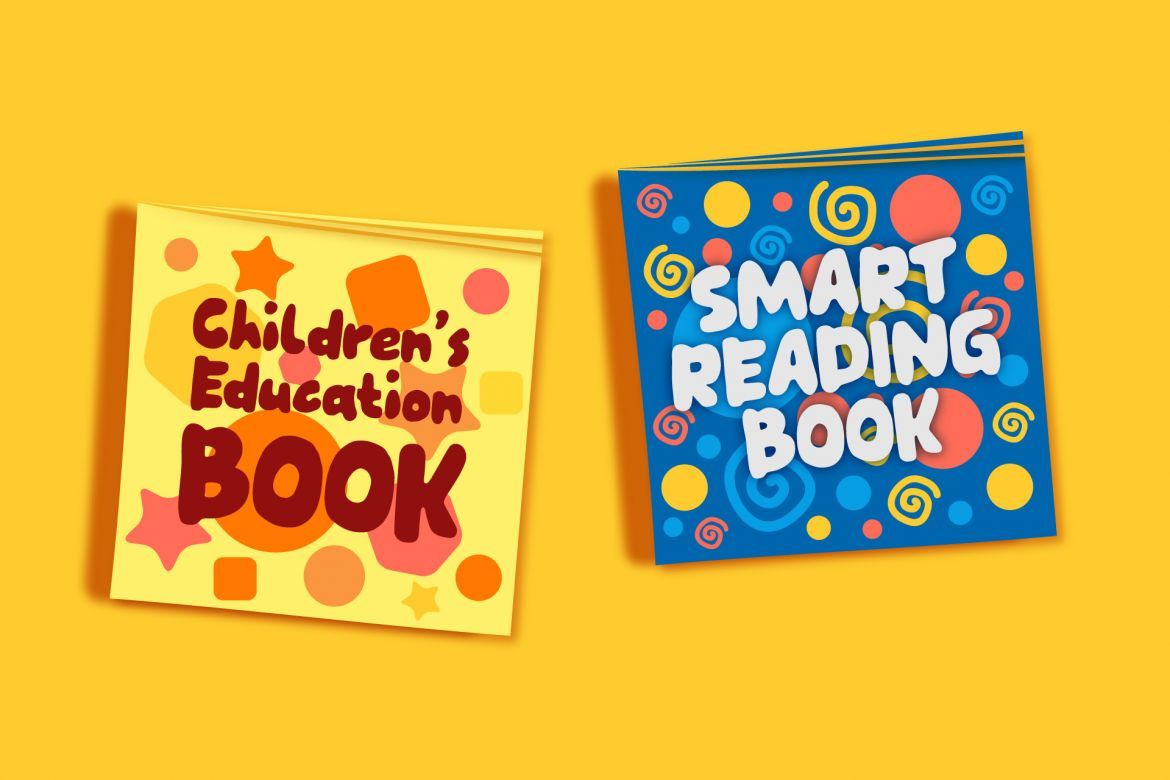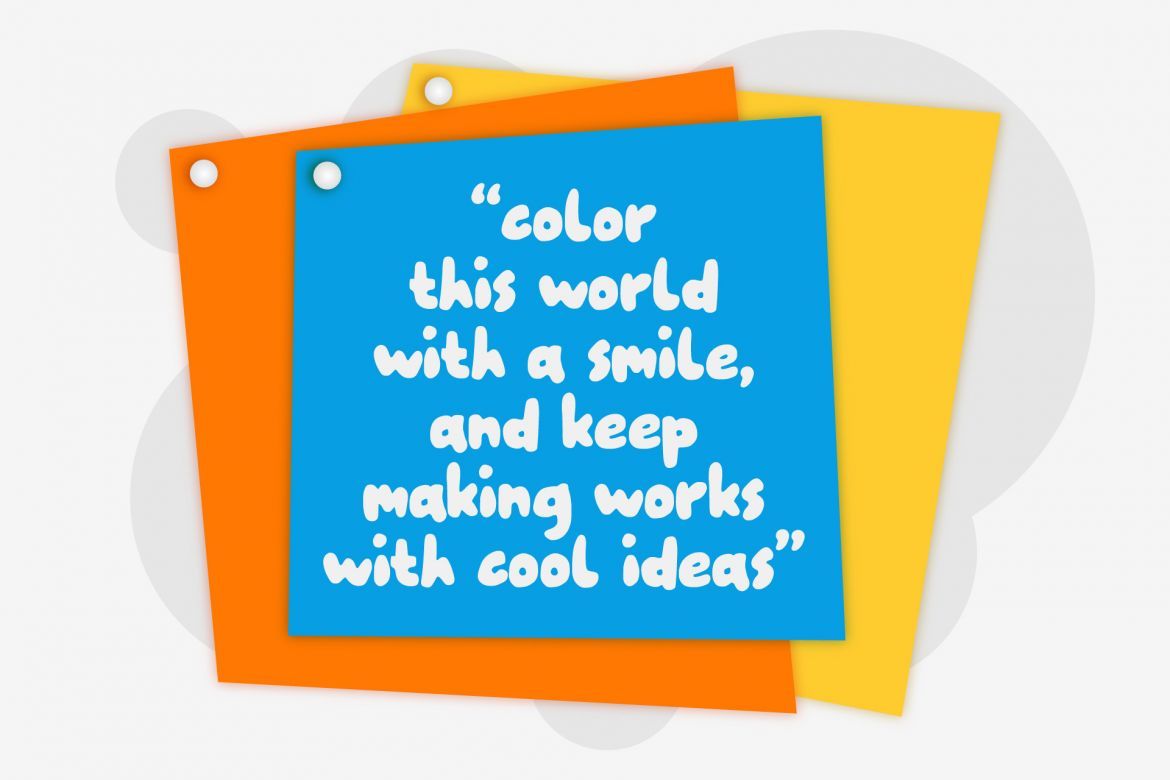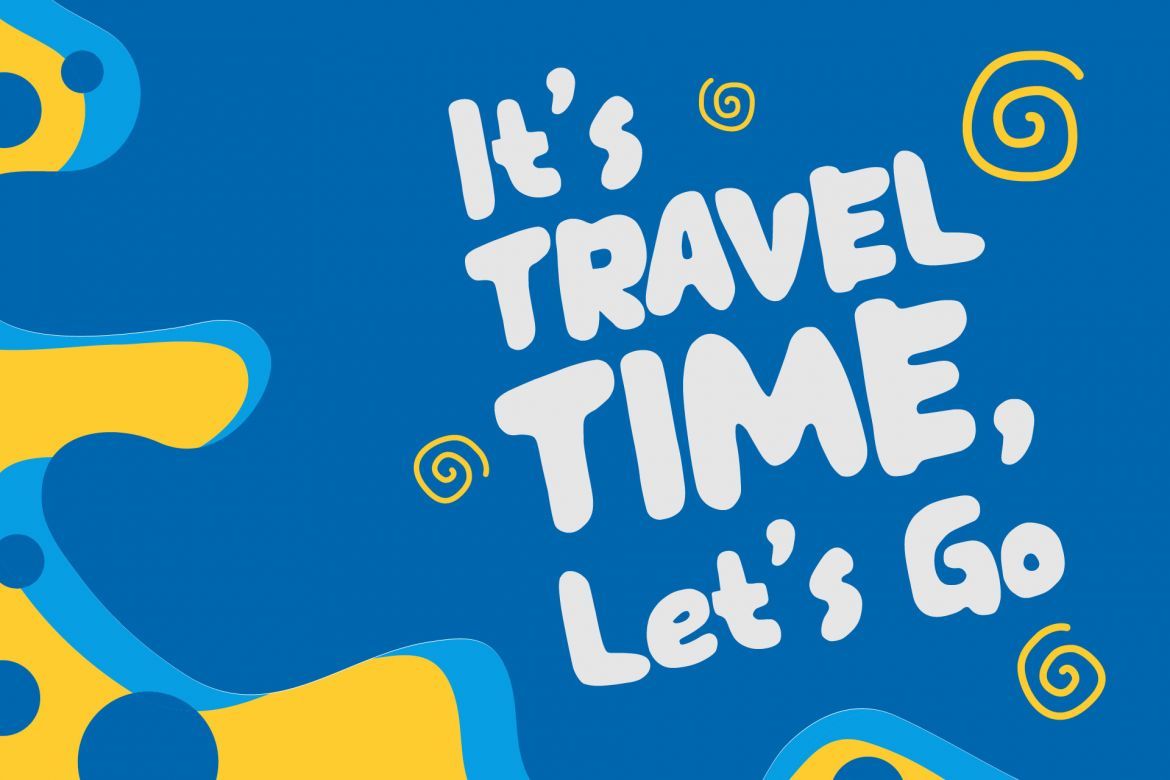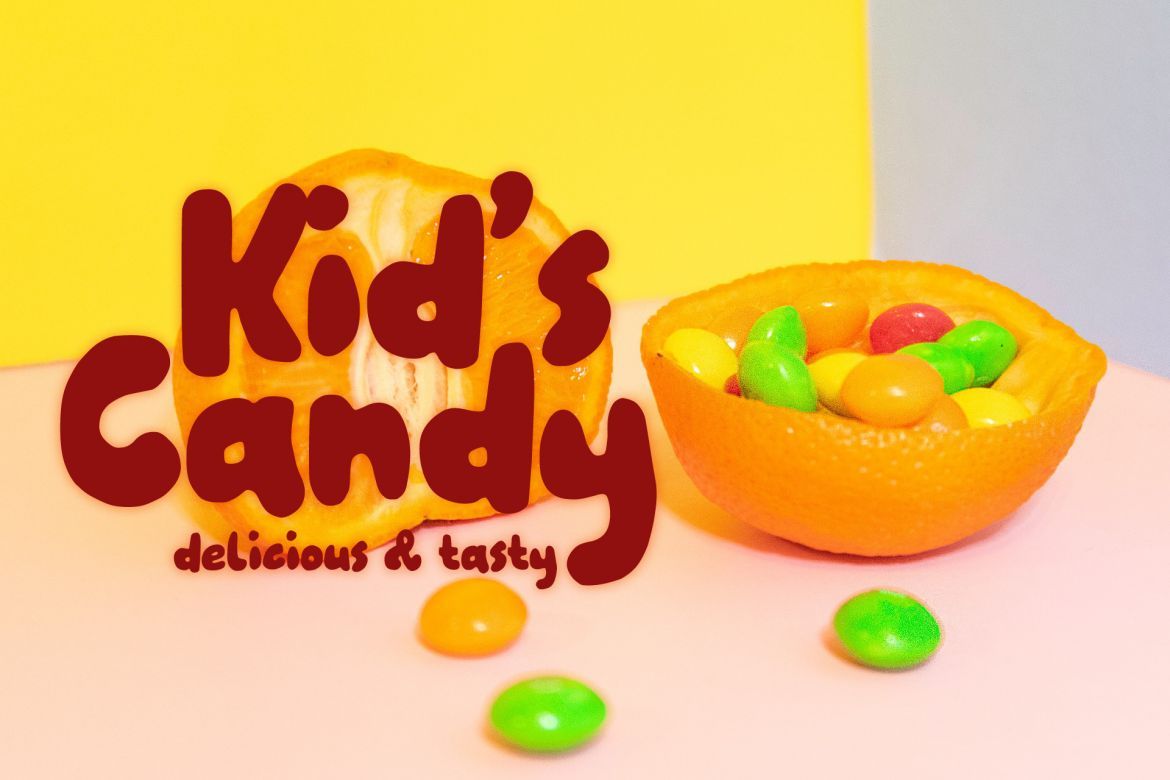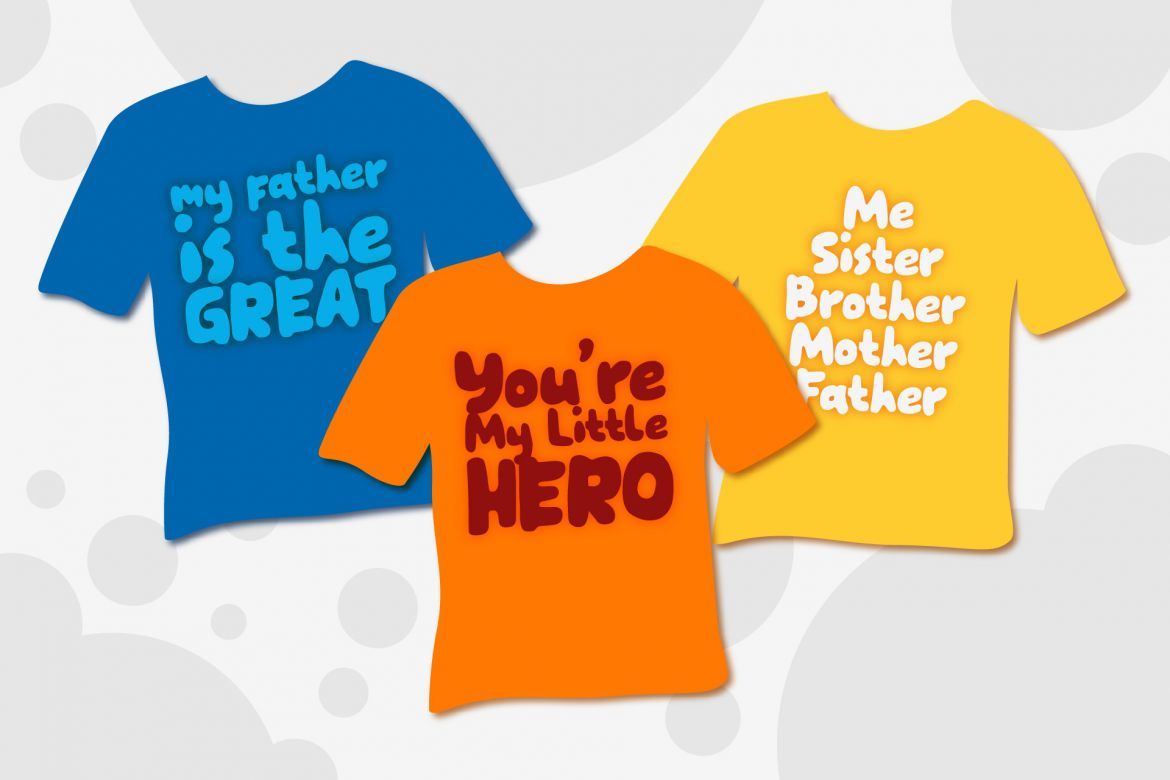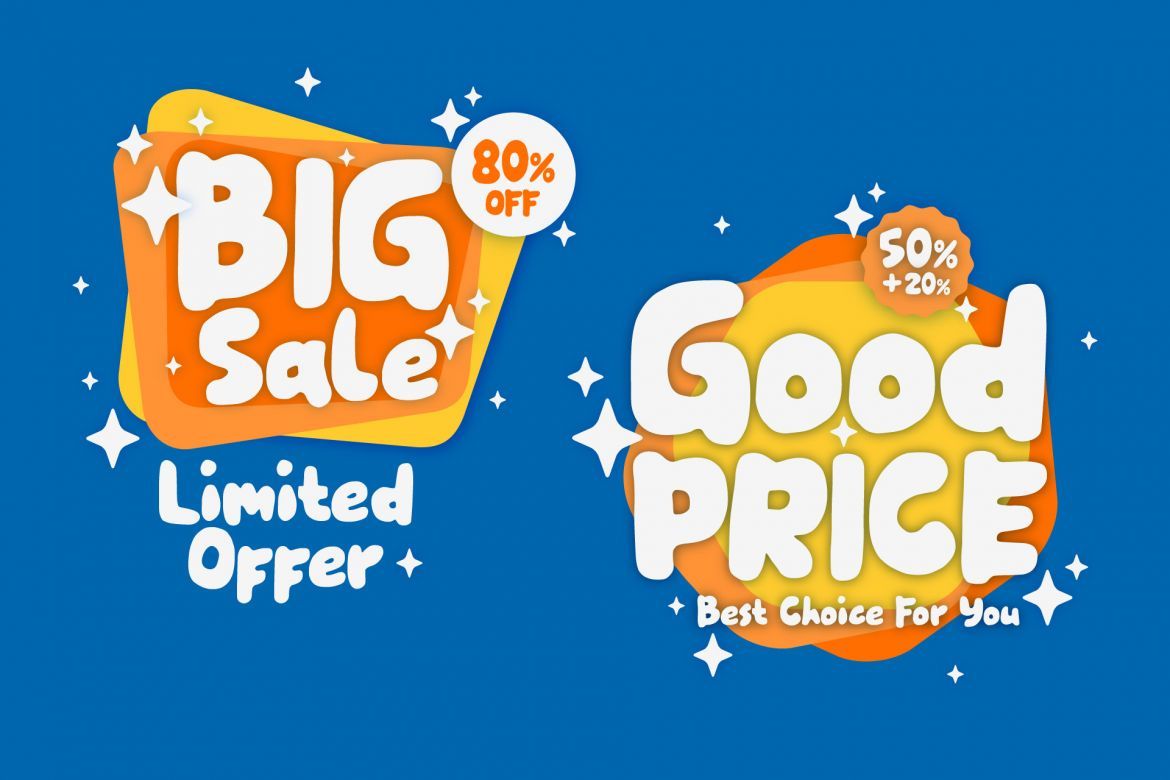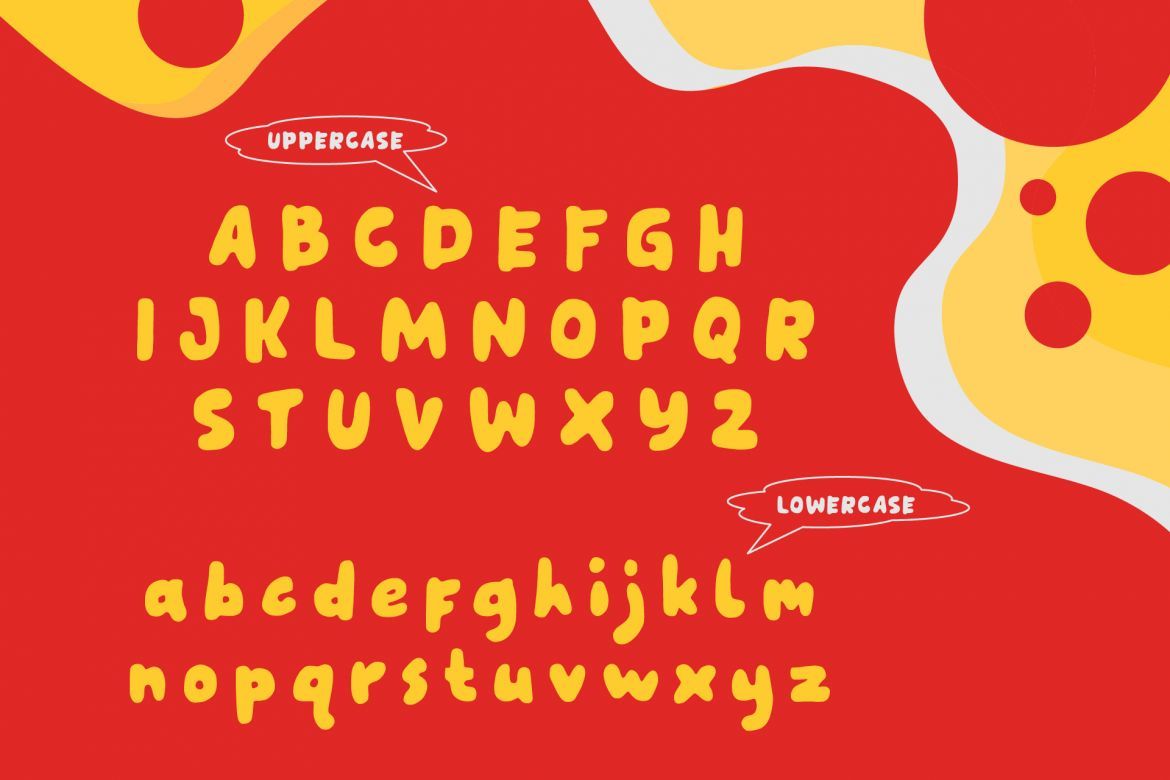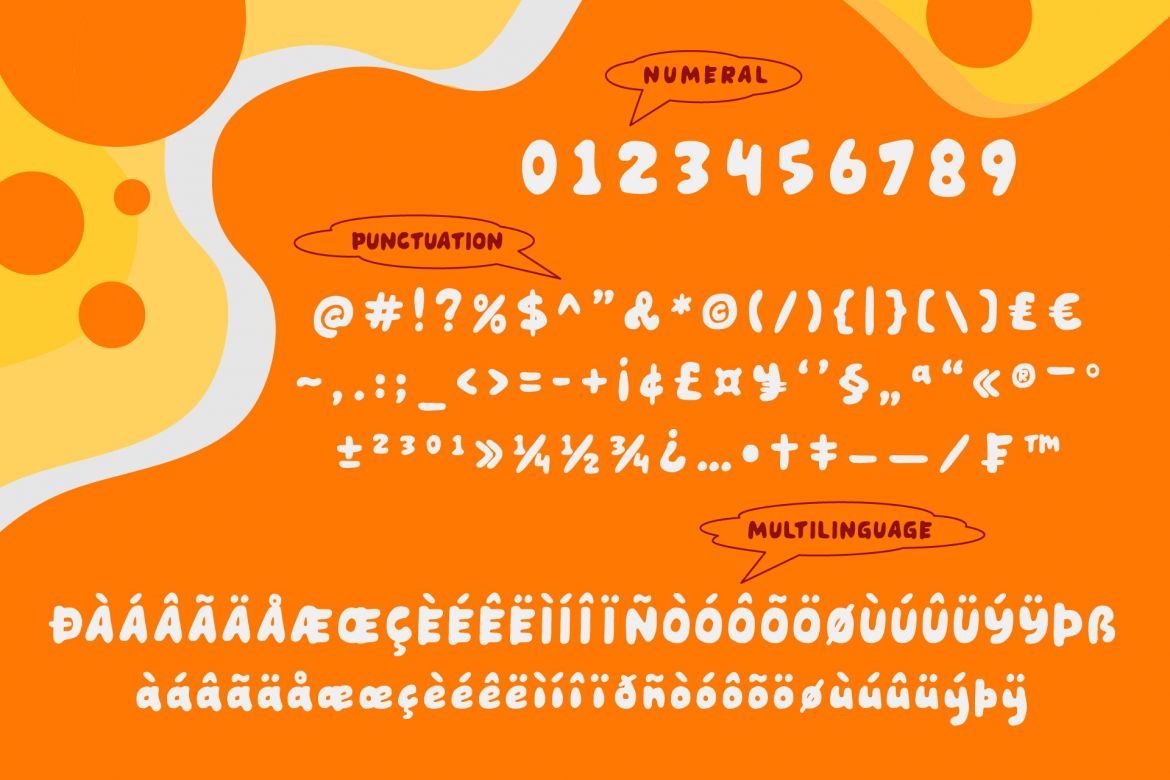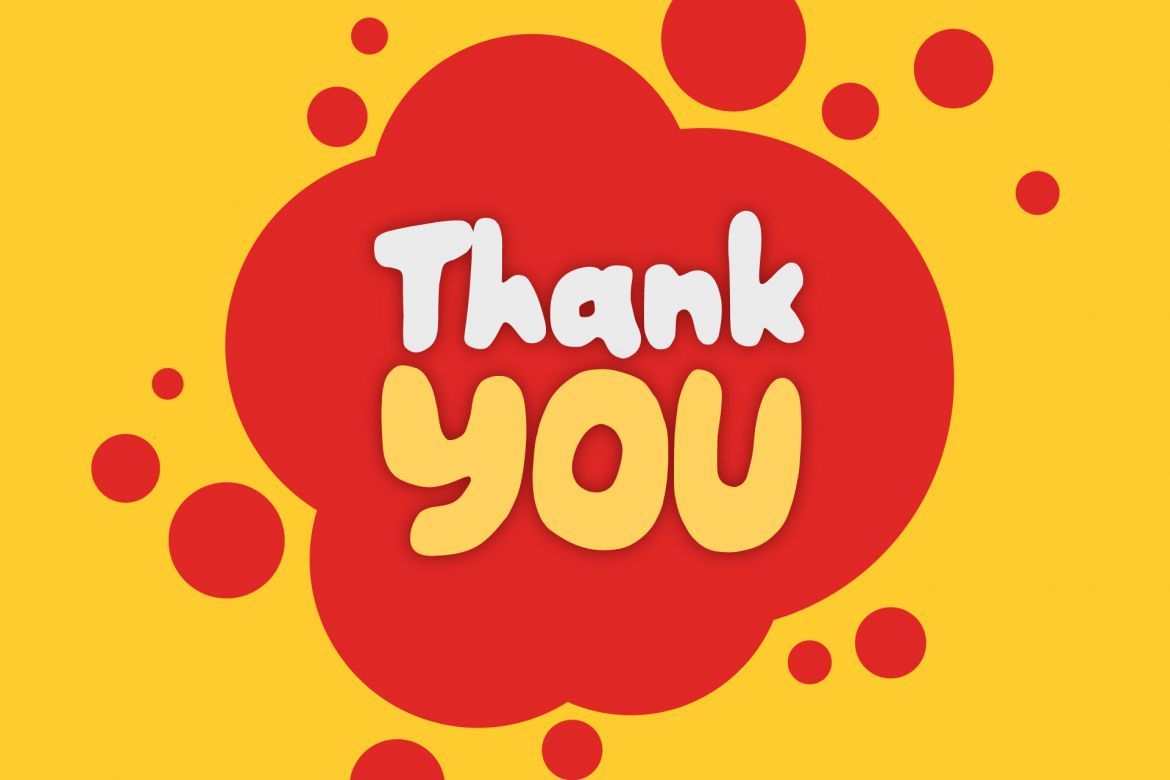
Hey Kidstoon - a fun handmade font
we just introduced our newest product, Hey Kidstoon a fun handmade font and this font with a cute, funny and cool style. This font is great for book covers, clothing brands, posters, packaging, clothing, branding, quotes, magazines and many others, this font can be the best choice for you.
• - multilingual support
• - uppercase, lowercase, numbers, punctuation & symbols